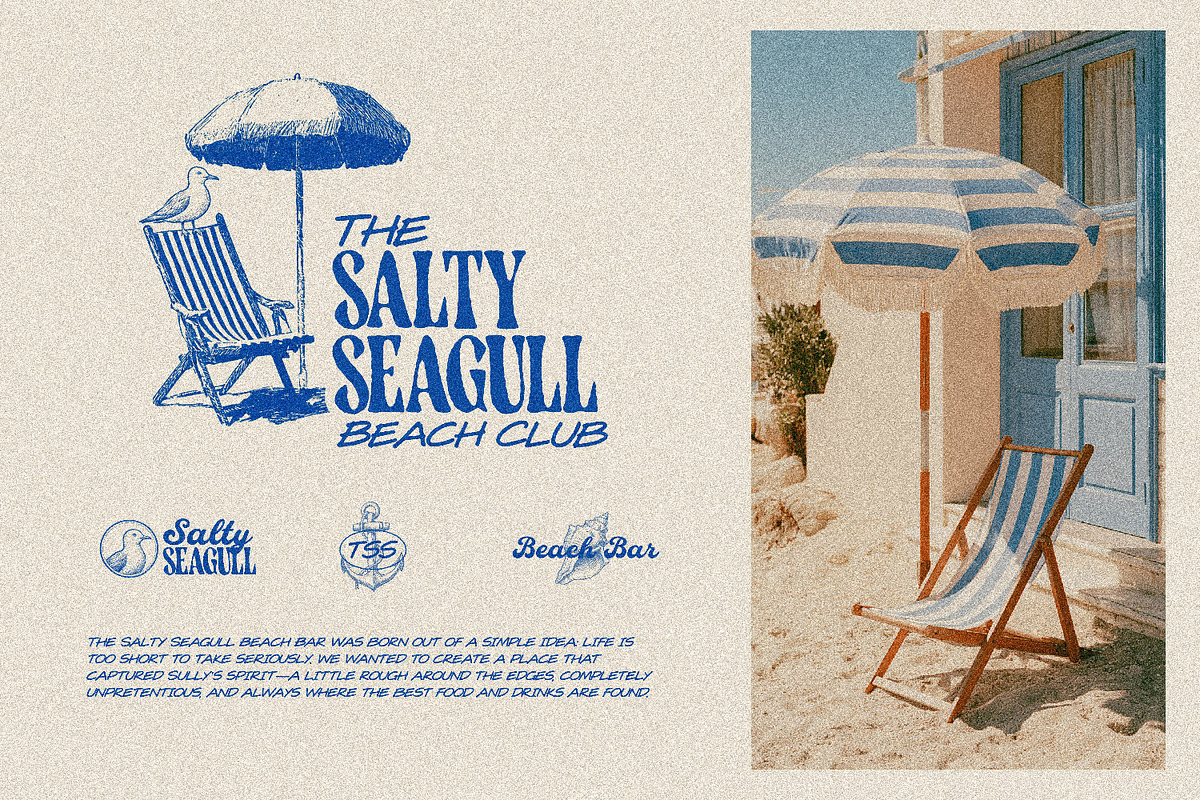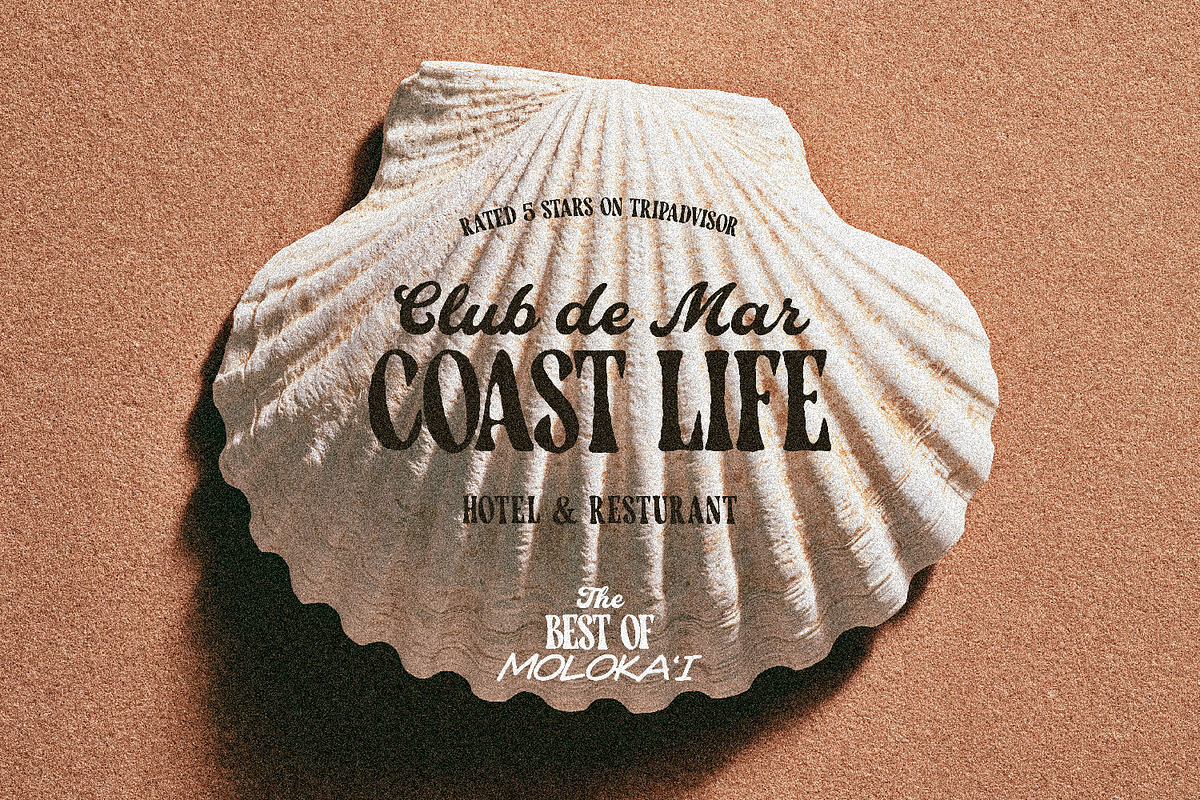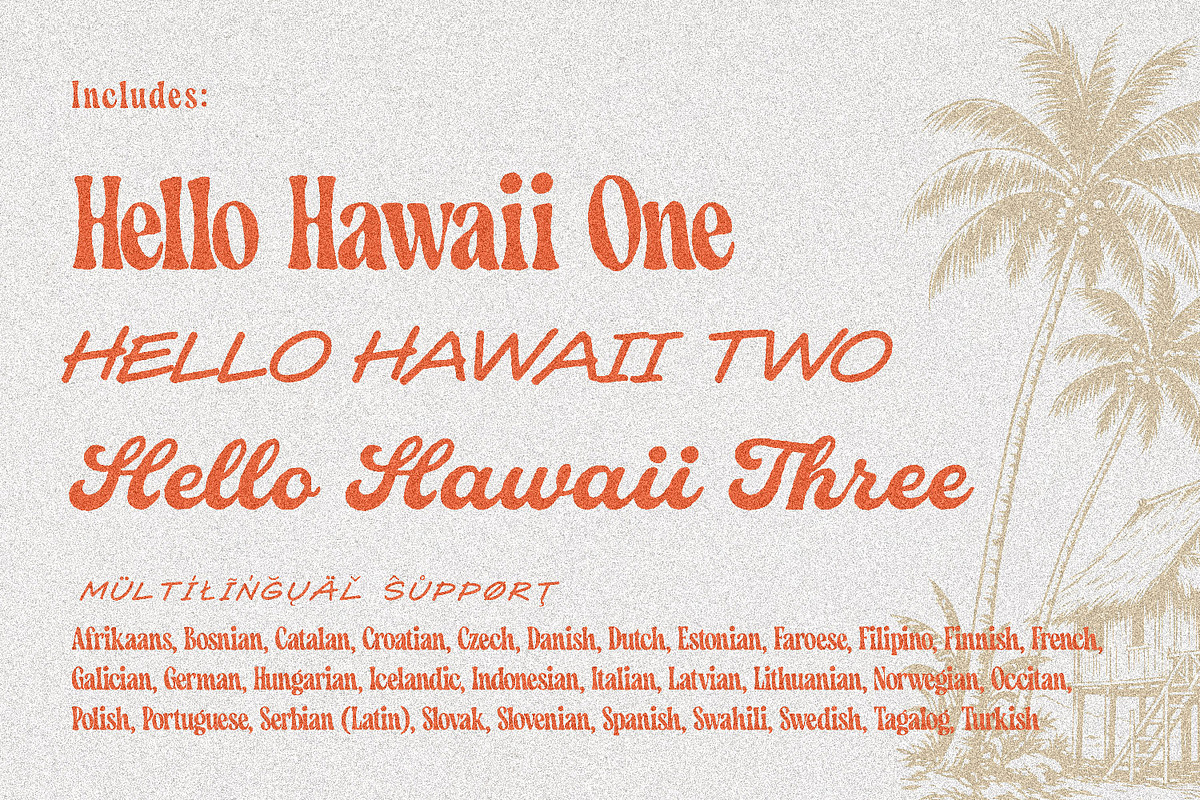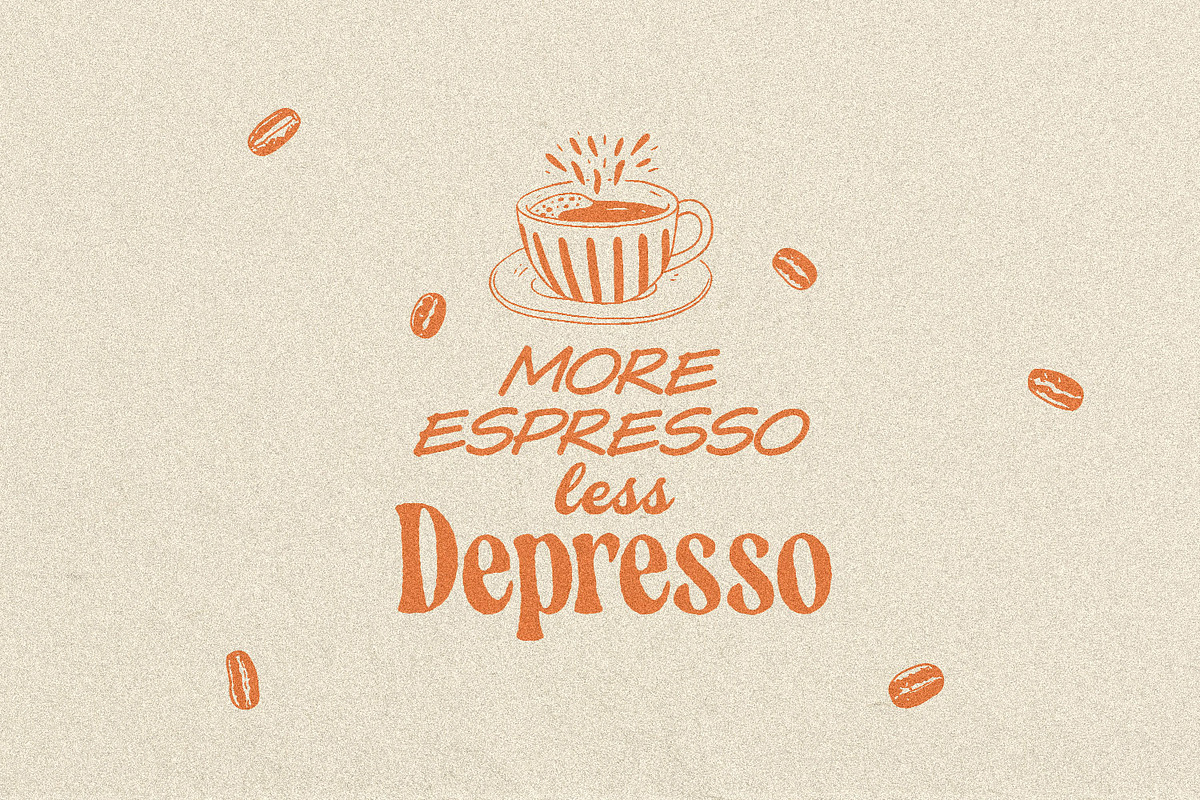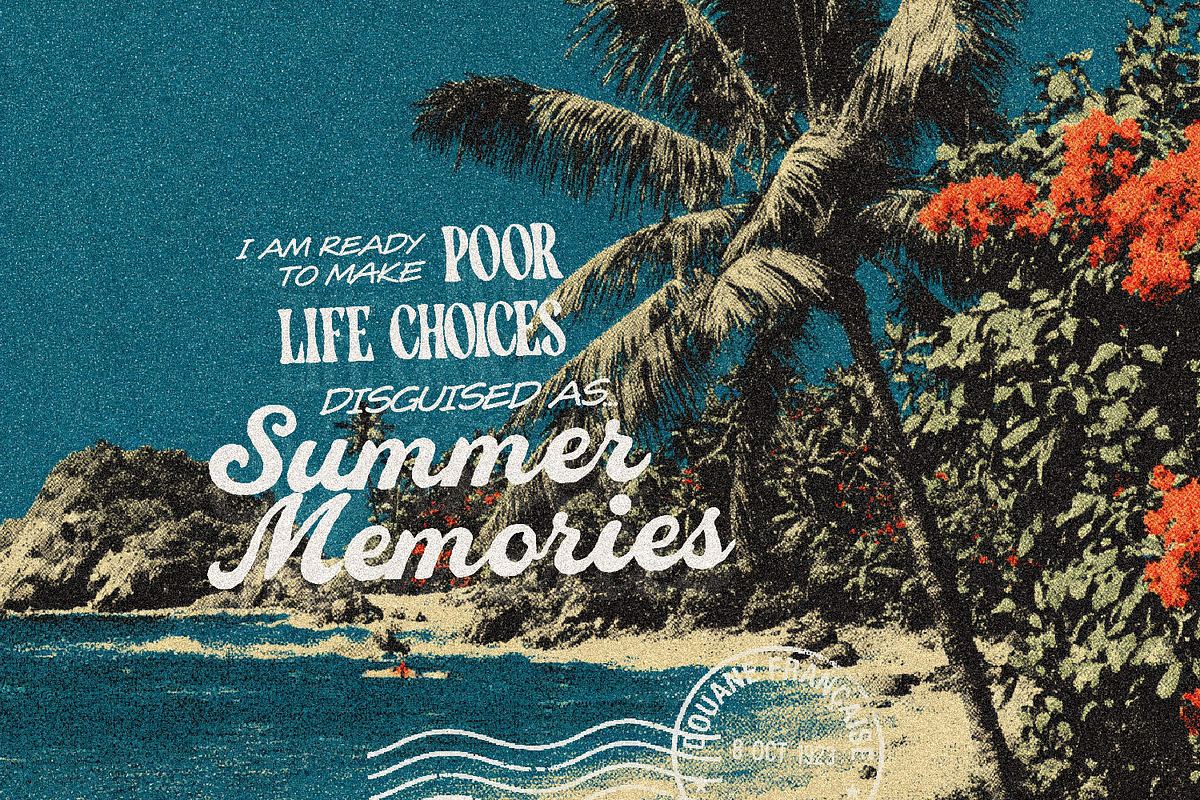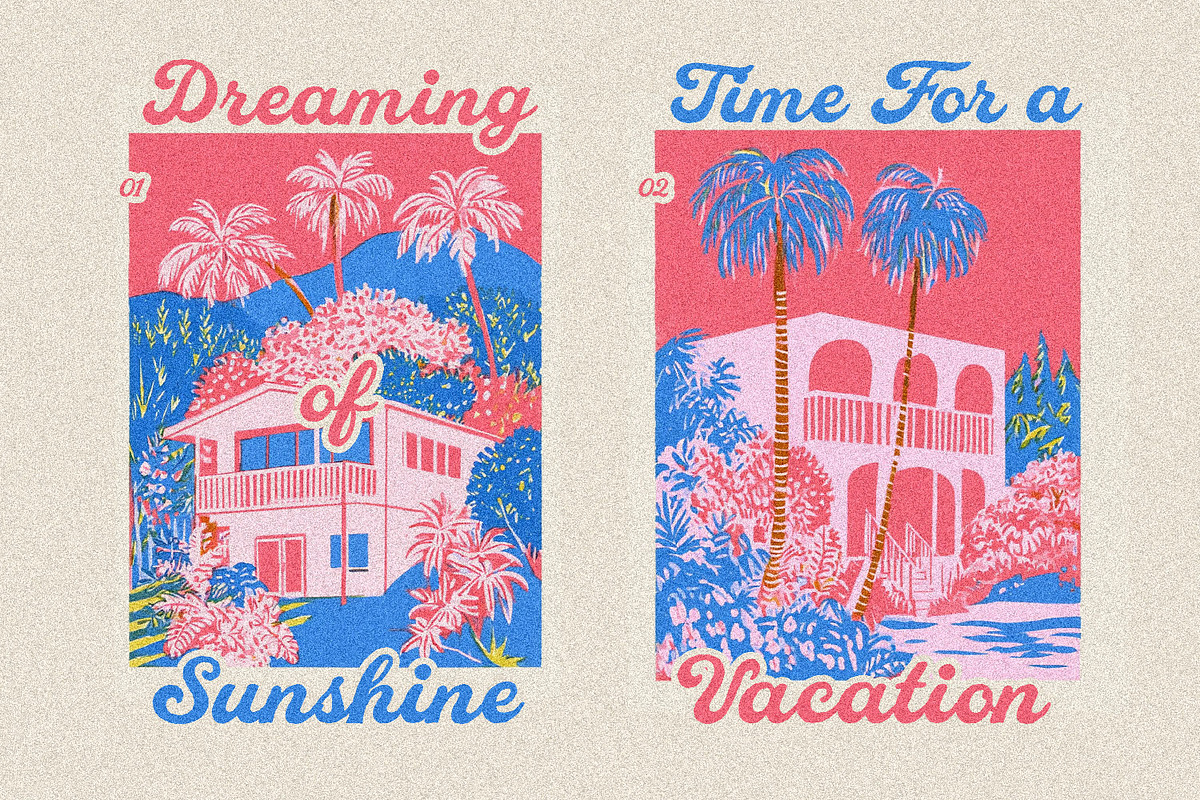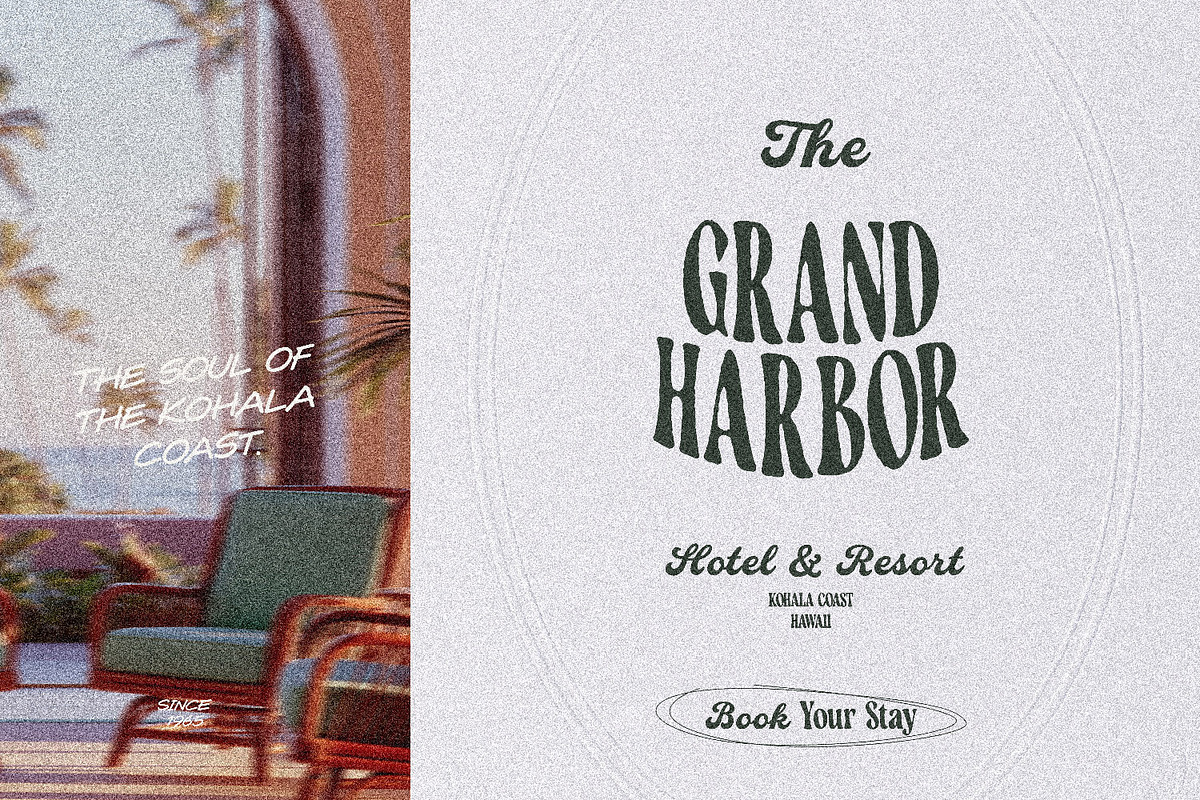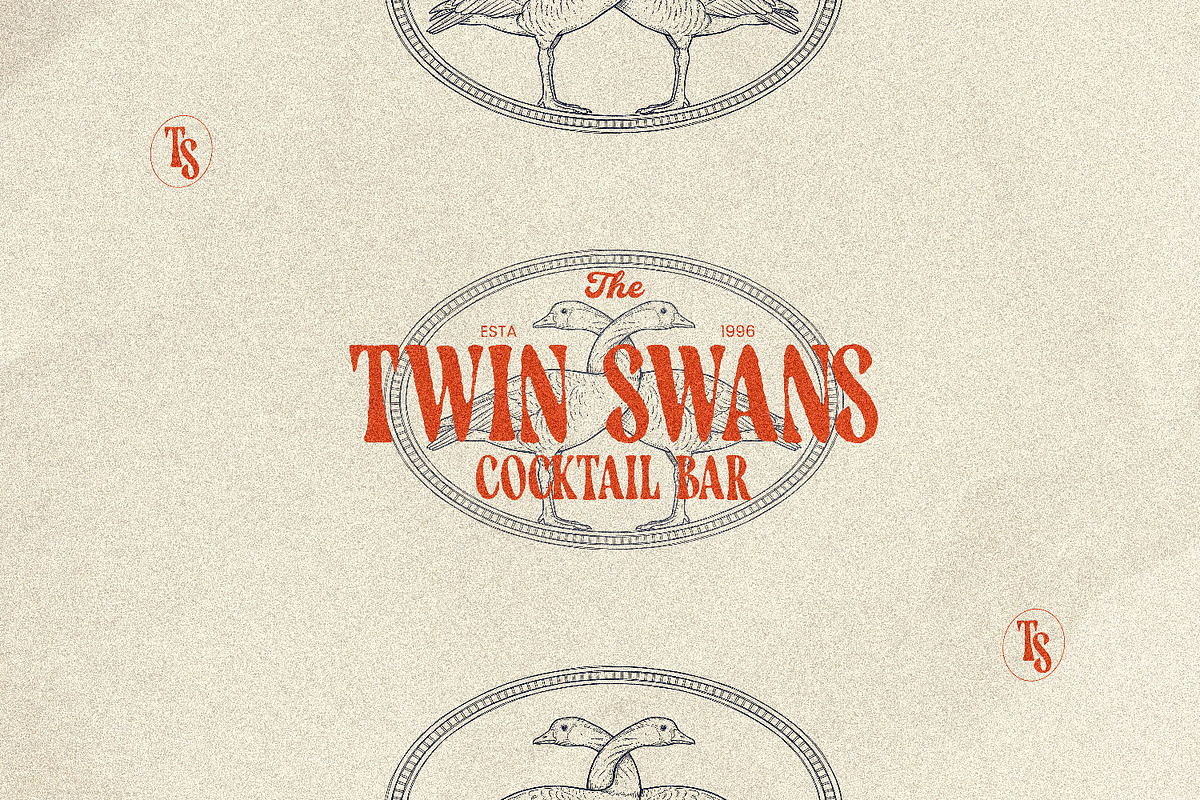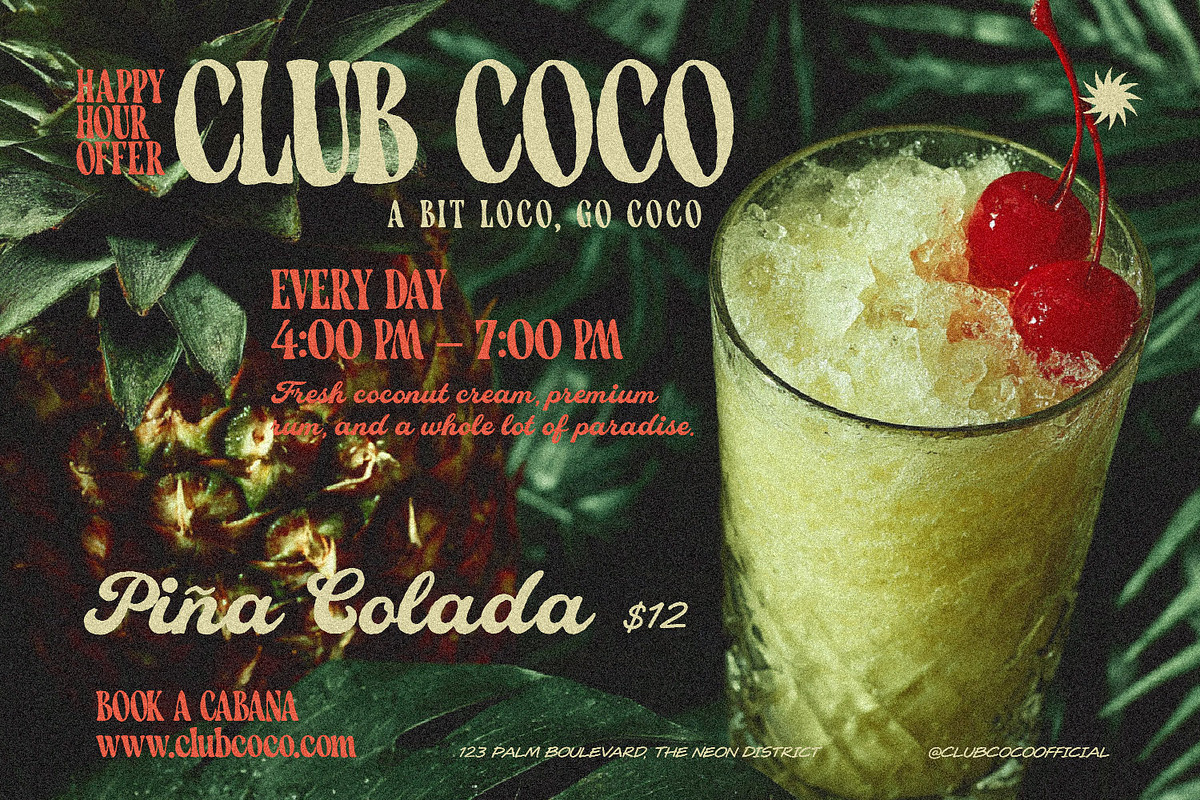
Hello Hawaii Retro Surf Font Trio
Bring the ultimate vintage summer vibes to your next design project with this perfectly paired, three-in-one font collection. Inspired by sun-drenched beaches, 70s surf culture, and tropical getaways, this trio is designed to give your work an effortlessly cool, nostalgic feel.
Whether you are designing a retro t-shirt, a beachy brand identity, or a fun summer party invitation, these three fonts take the guesswork out of typography pairing. They look amazing on their own, but truly shine when mixed and matched together!
Hello Hawaii One (.OTF Display): A bold, wavy, psychedelic-inspired display font that demands attention and screams 70s nostalgia.
Hello Hawaii Two (.OTF Handwritten): A casual, breezy marker-style font perfect for adding a laid-back, personal touch.
Hello Hawaii Three(.OTF Script): A smooth, flowing retro script that adds a touch of vintage elegance and rhythm.